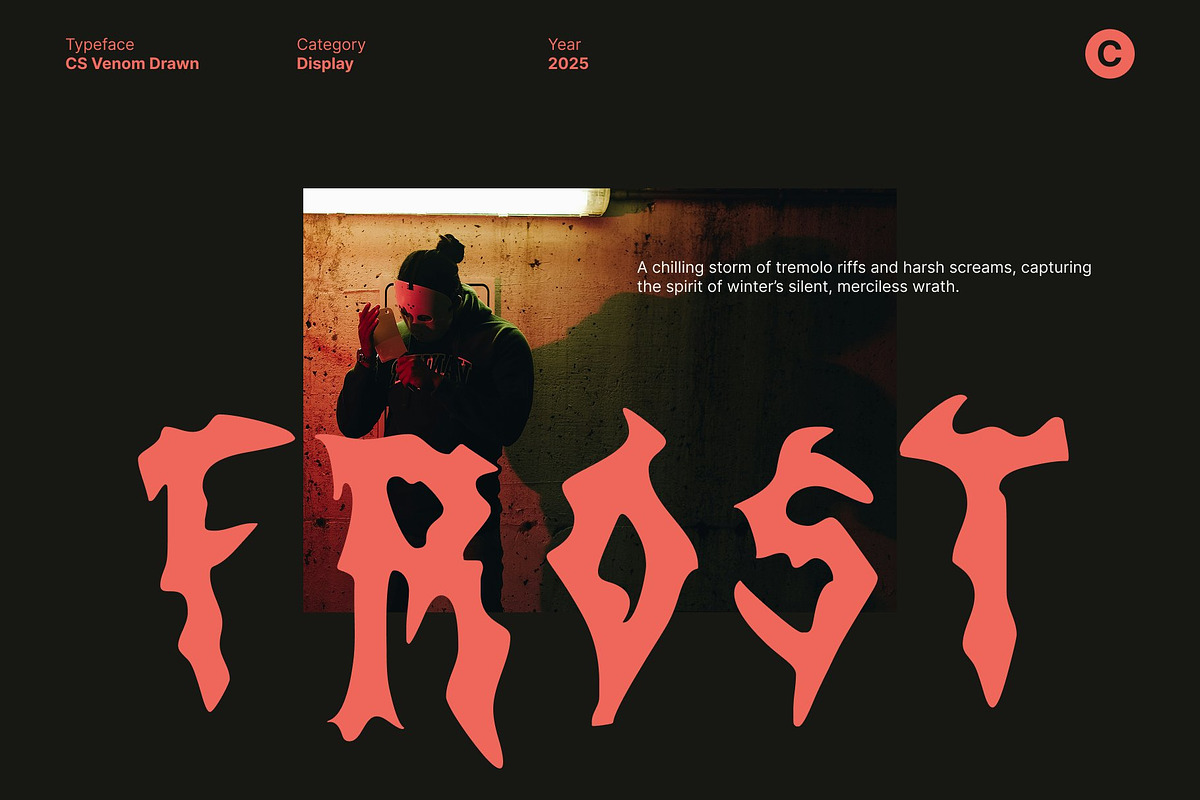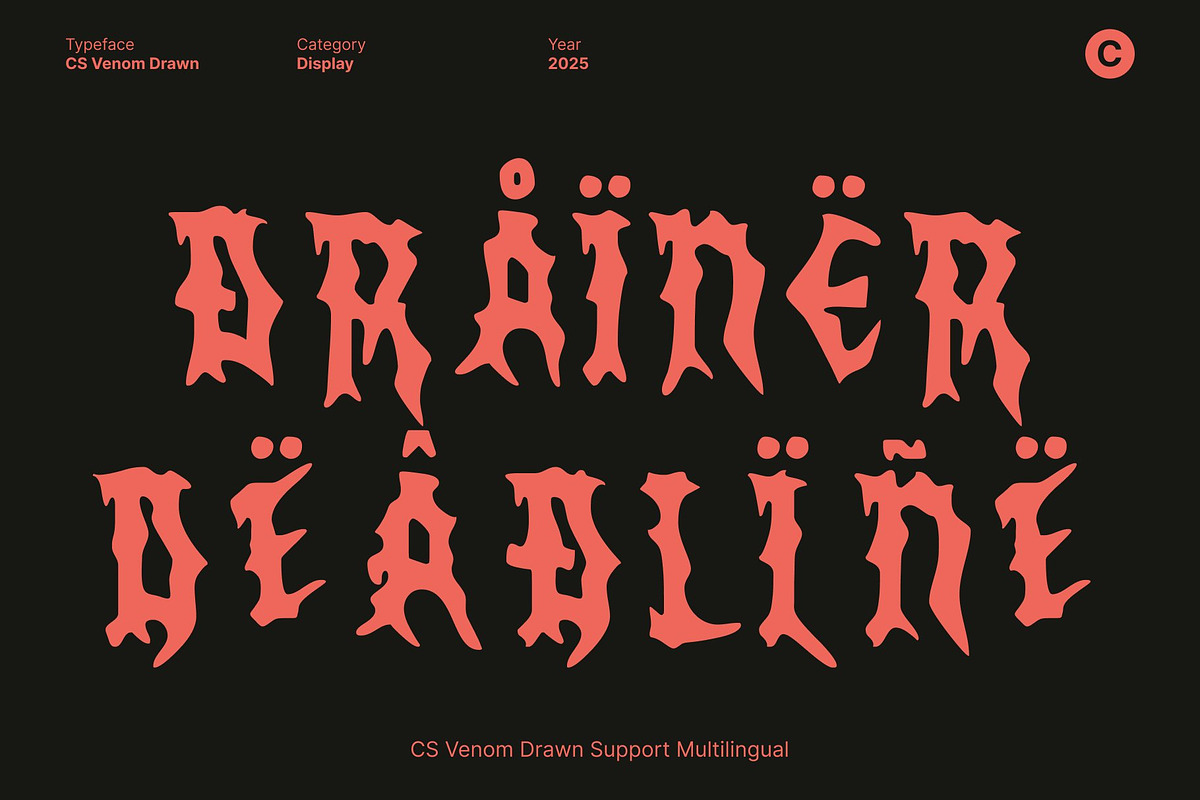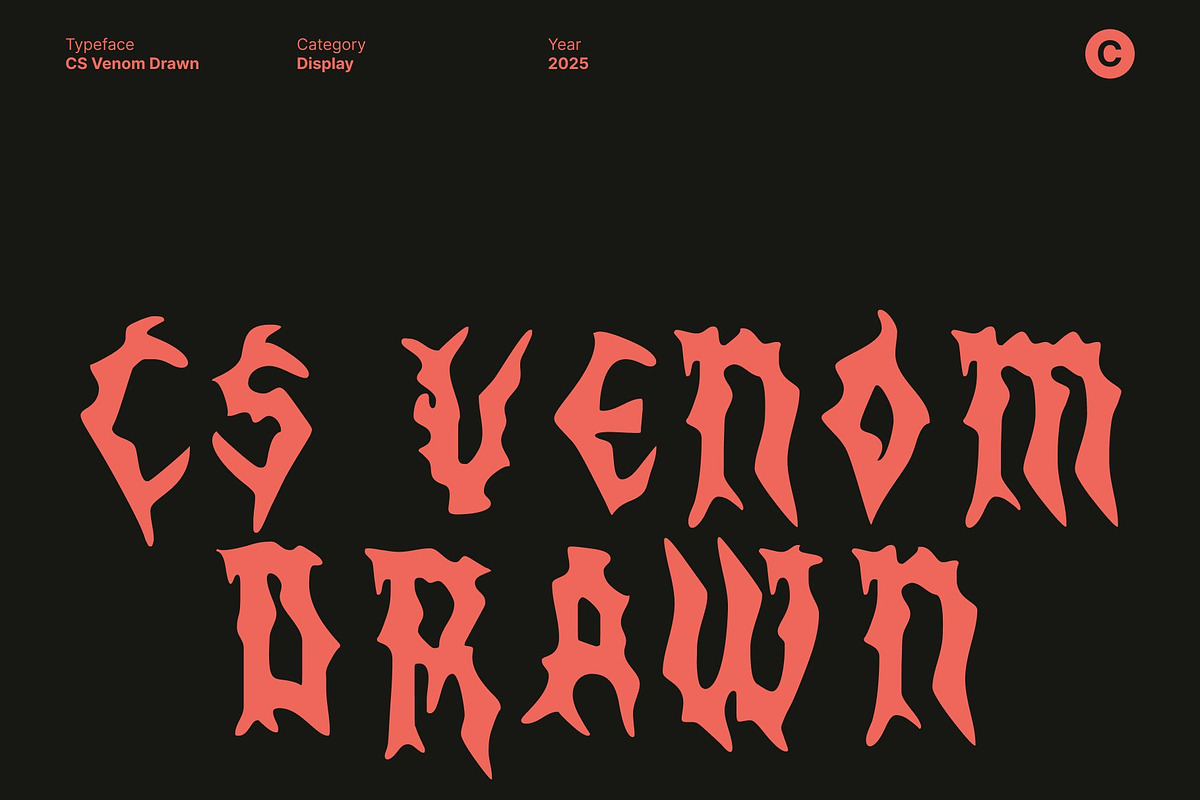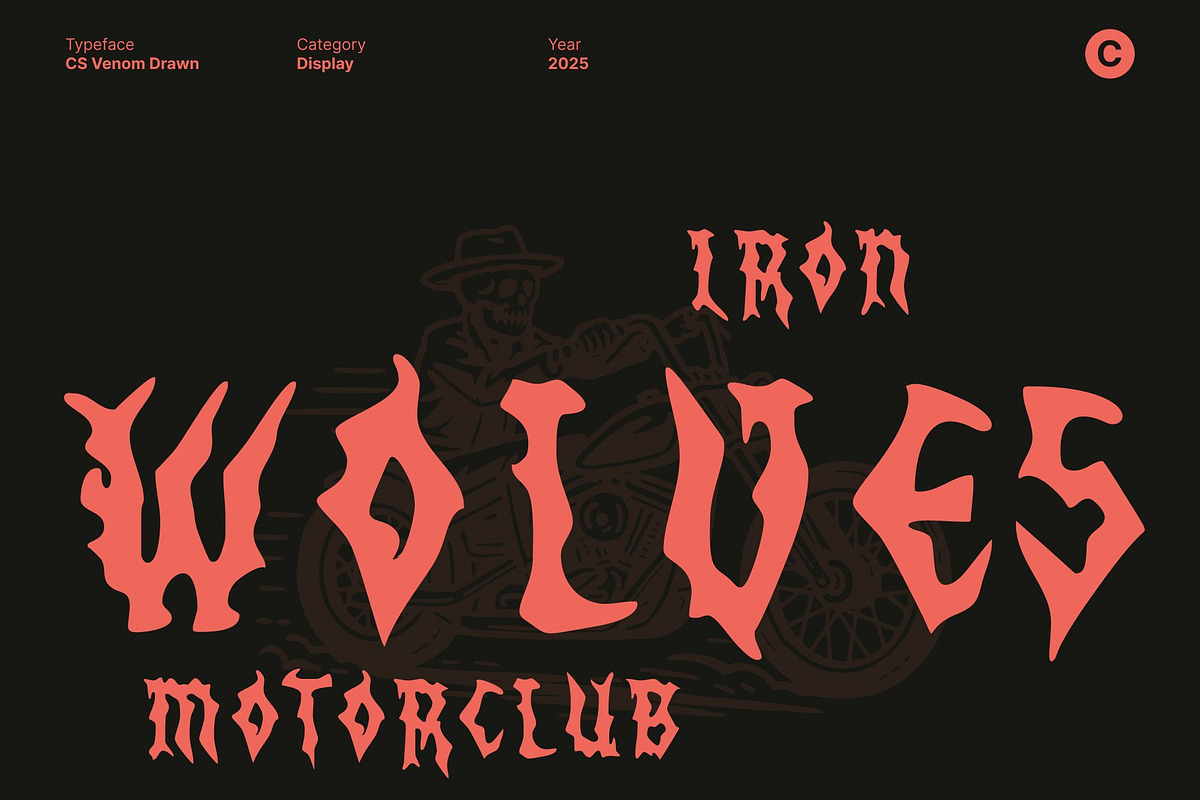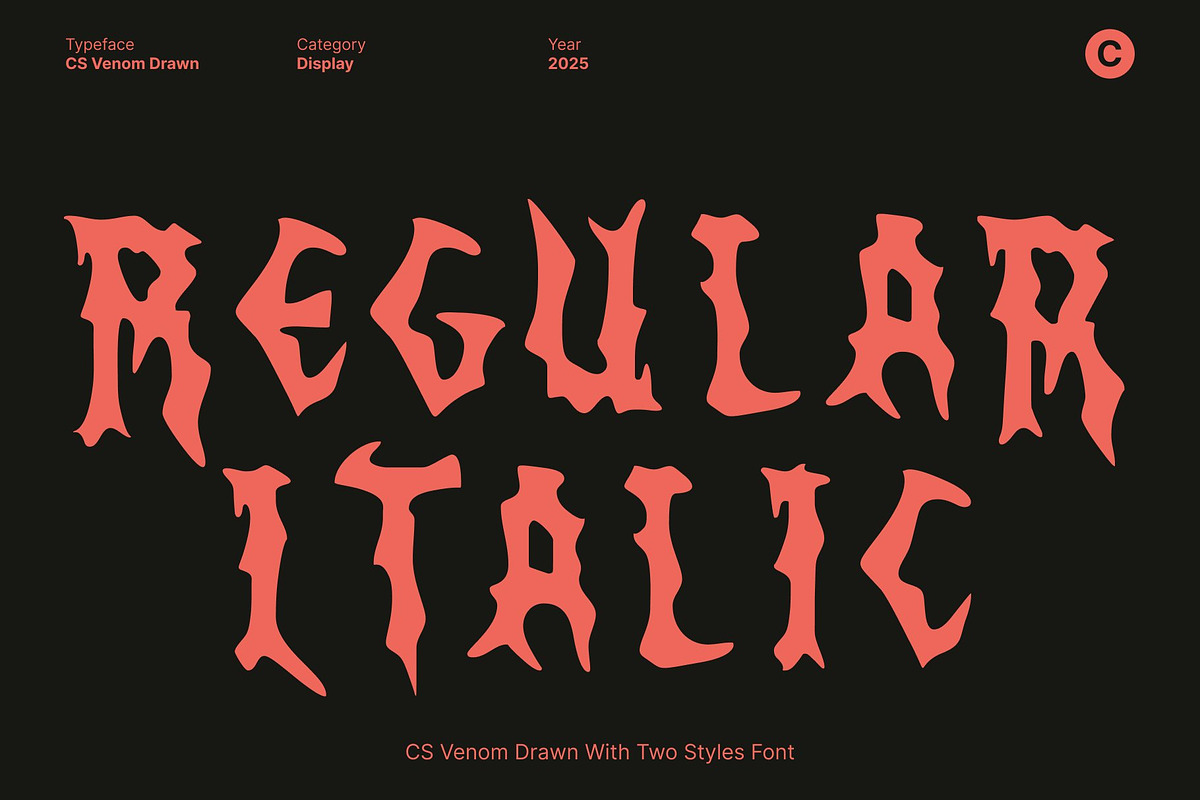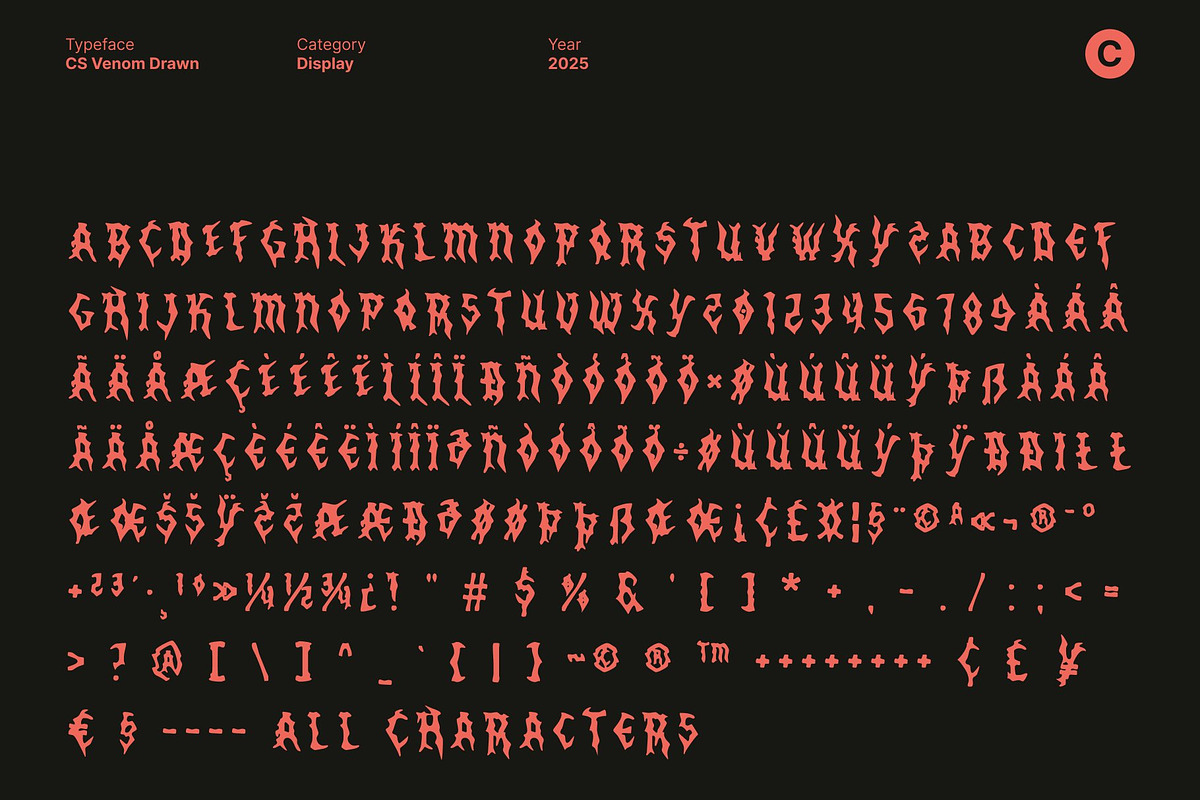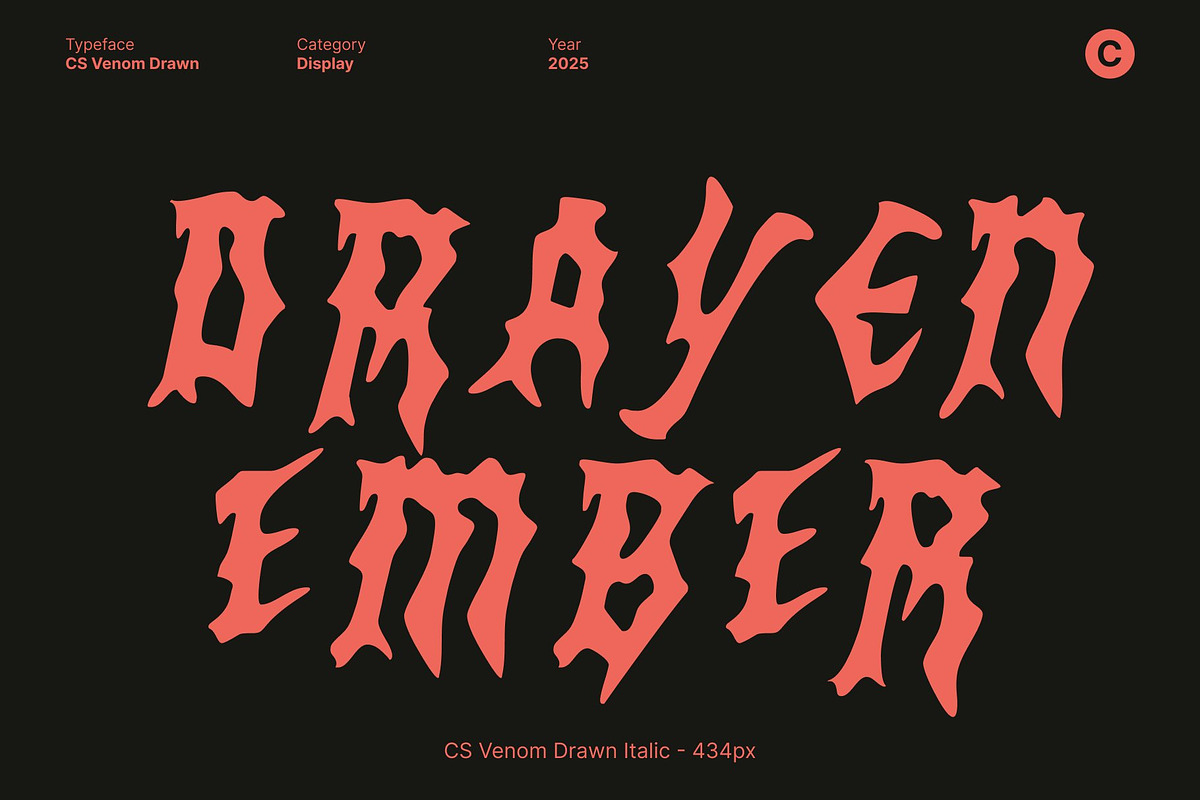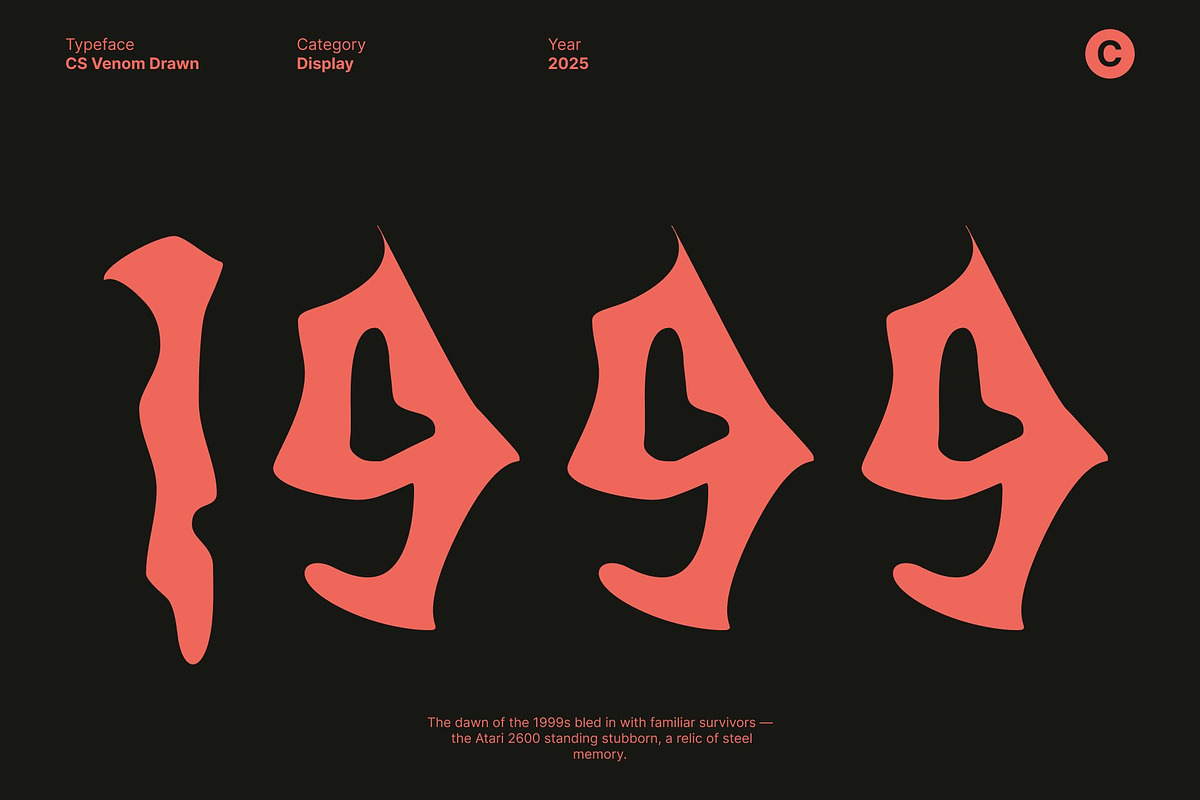
CS Venom Drawn
CS Venom Drawn – Black Metal Font with Ferocious Hand-Drawn Chaos
Brutal, Jagged Forms That Radiate Darkness This is a raw, aggressive black metal display font built to unleash maximum visual impact. Featuring jagged spikes, twisted strokes, and chaotic letterforms, it channels the fierce, venomous energy of extreme music. Every character is crafted to feel sharp, violent, and unapologetically dark—perfect for designs that demand intensity.
Hand-Drawn Texture for an Authentic Underground Feel Infused with a gritty hand-drawn effect, embraces rough edges and imperfect lines to heighten its rebellious character. The textured strokes give the font a raw, underground authenticity, making each letter look organically chaotic and artistically distressed. This drawn detail amplifies its metal attitude and handcrafted brutality.
Ideal for Band Logos, Posters, and Extreme Designs Designed for bold and heavy-hitting visuals, excels in black metal band logos, album artwork, gig posters, merchandise, and dark-themed branding. Its aggressive shapes and chaotic texture instantly set a harsh, powerful mood, making the font a perfect choice for projects that need to feel sinister, loud, and unforgettable.
A Typeface That Captures the Spirit of Extreme Music This font merges jagged metal aesthetics with expressive hand-drawn texture to create a typeface overflowing with fury and intensity. It embodies the raw essence of extreme metal dark, destructive, and full of energy making it ideal for designers seeking a font that truly dominates the visual space.
- CS Venom Drawn Regular
- CS Venom Drawn Italic